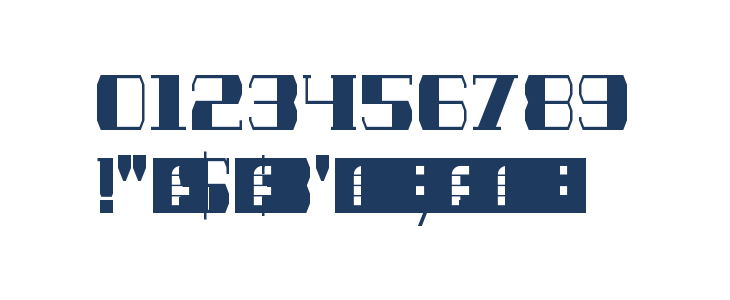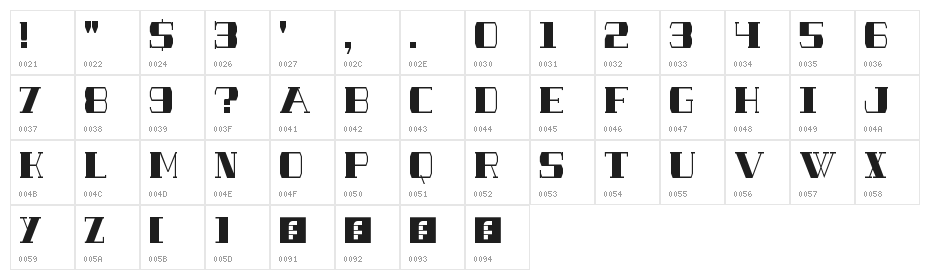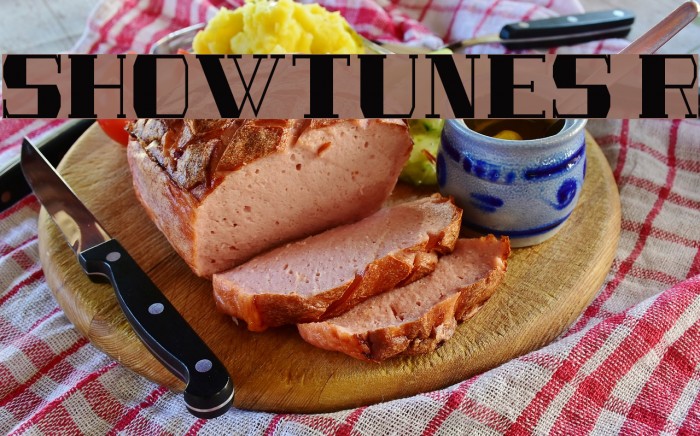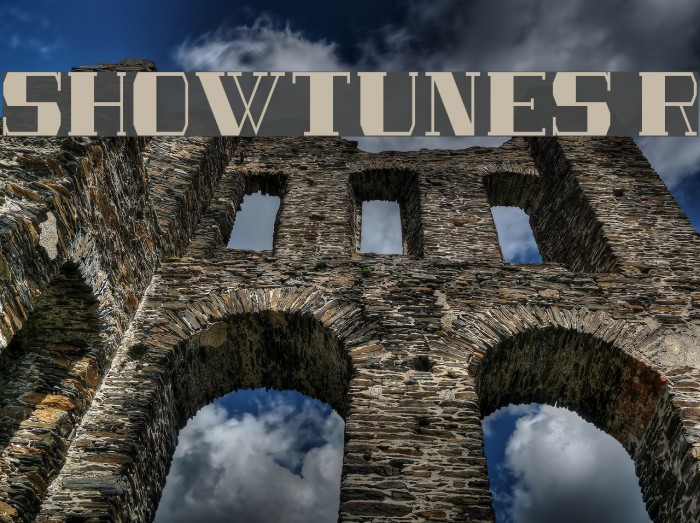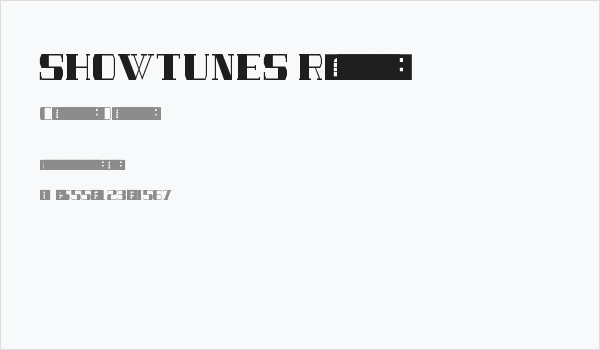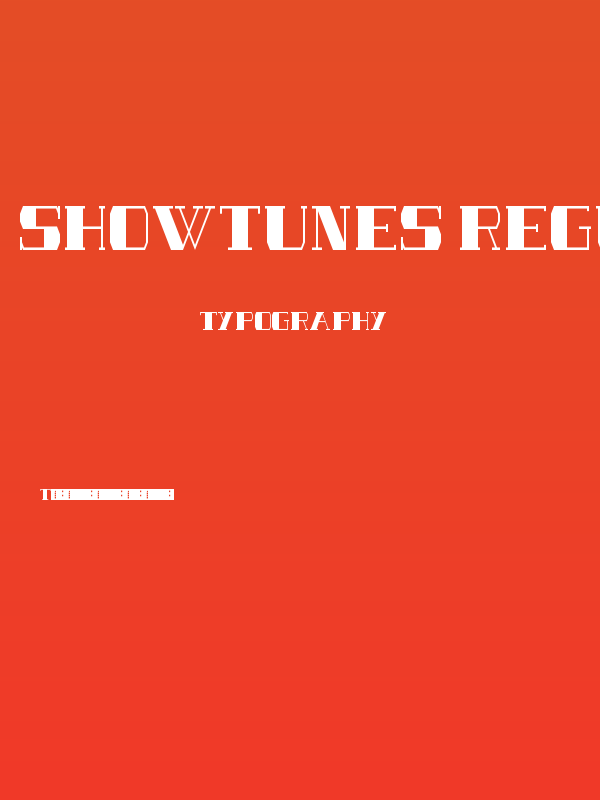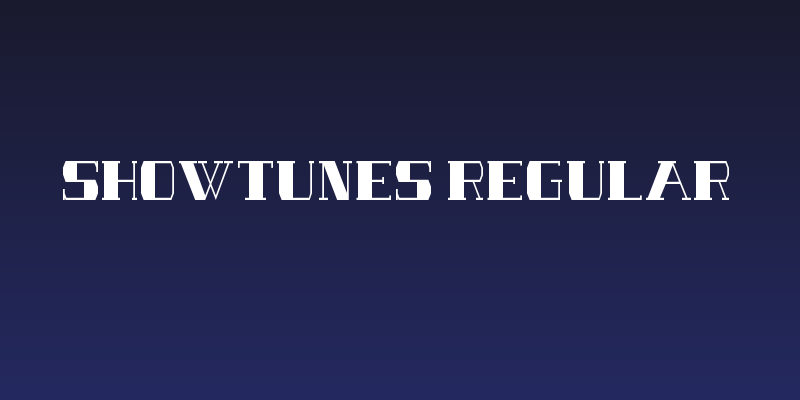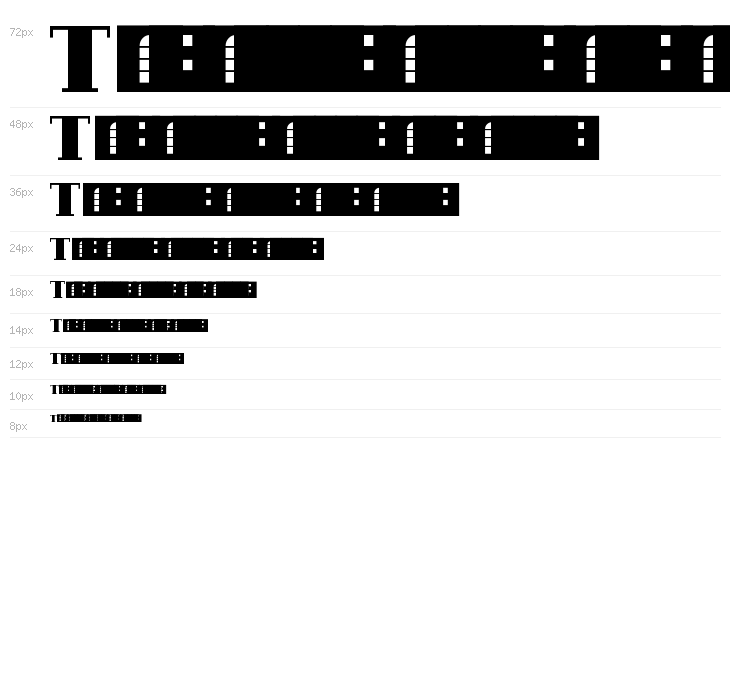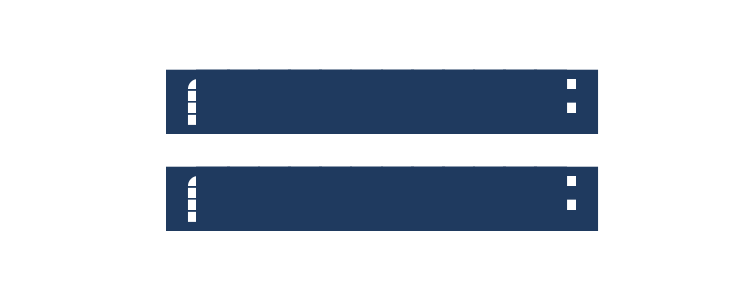
SHOWTUNES Regular Font
SHOWTUNES Regular Description
This font exhibits a bold and theatrical style, characterized by its strong geometric shapes and high contrast between thick and thin strokes. The uppercase letters have a distinct, angular design with sharp edges, giving them a dynamic and impactful appearance. The numbers and special characters maintain this bold aesthetic, ensuring consistency across all glyphs. The font's unique style makes it suitable for eye-catching designs where a dramatic flair is desired.
| Overall Style | Dramatic and Theatrical |
| Proposed Projects | Ideal for theatrical posters, event promotions, and branding that requires a bold statement. |